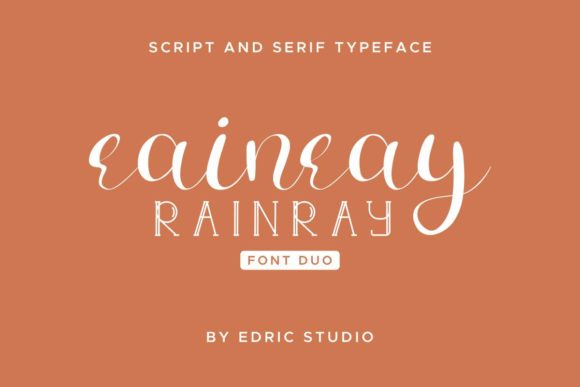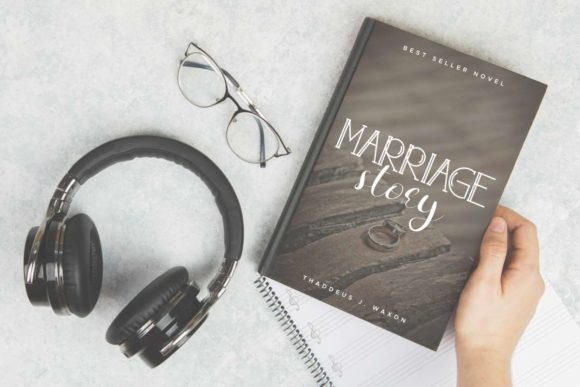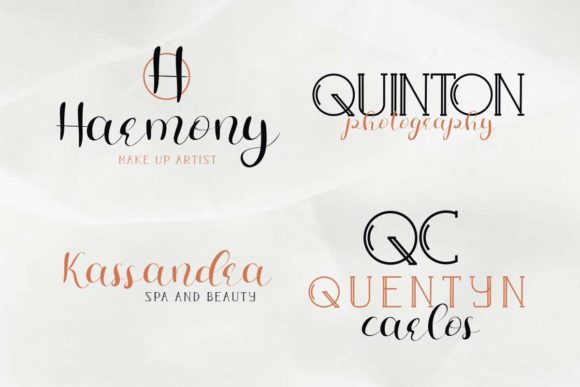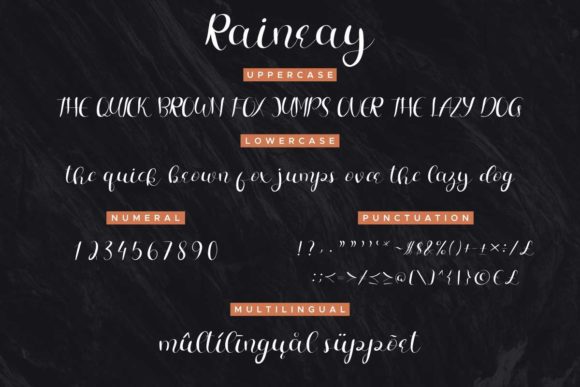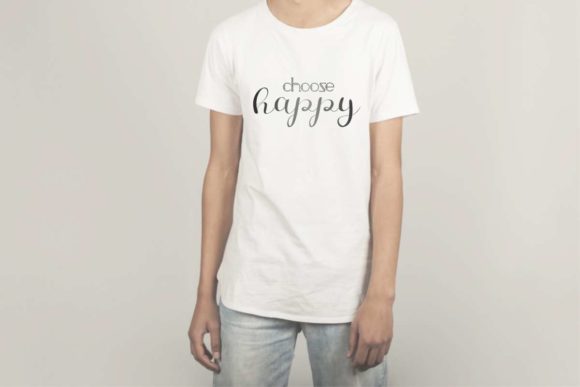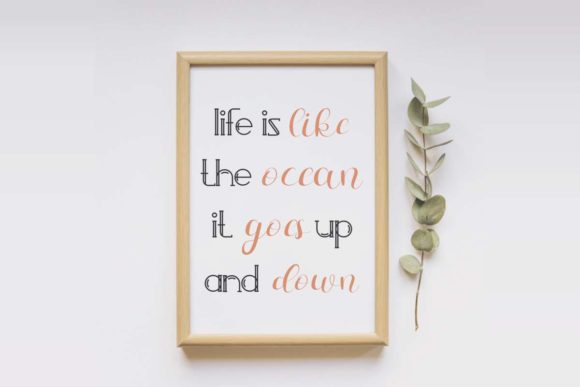
Introduction to Rainray Font Font
Fonts play a crucial role in design, and the Rainray Font font is a typeface that brings both character and versatility to any project. Whether you’re working on a branding project, a website, or a print design, the Rainray Font font offers a unique style that can elevate your work.
Rainray is a unique and elegant duo font.
It combines a gorgeous script style with a modern and classy serif This versatility means that this font can be used in a wide variety of applications from branding, to greeting cards- the only limit is your imagination.
Key Features of Rainray Font Font
Why Choose Rainray Font Font?
The Rainray Font font is more than just a typeface – it’s a design tool that helps you communicate your message with style and clarity. Its unique character set and versatile design make it suitable for a wide range of applications, from elegant invitations to bold headlines.
With its carefully crafted letterforms and balanced proportions, the Rainray Font font ensures readability and visual appeal across all mediums.
What makes Rainray Font font special?
The Rainray Font font stands out with its unique design, exceptional readability, and versatility across various design applications.